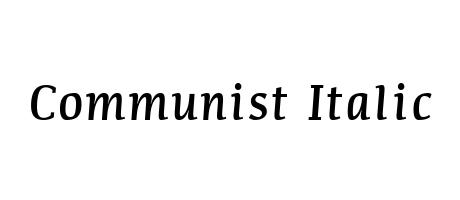
Communist
Communist Italic is a serif typeface, elegant and slightly condensed. Its italic style leans gracefully, with subtly bracketed serifs adding a touch of old-world charm. The letterforms are refined and slightly splayed, hinting at both classical and modern influences. Its overall feel is sophisticated yet readable.